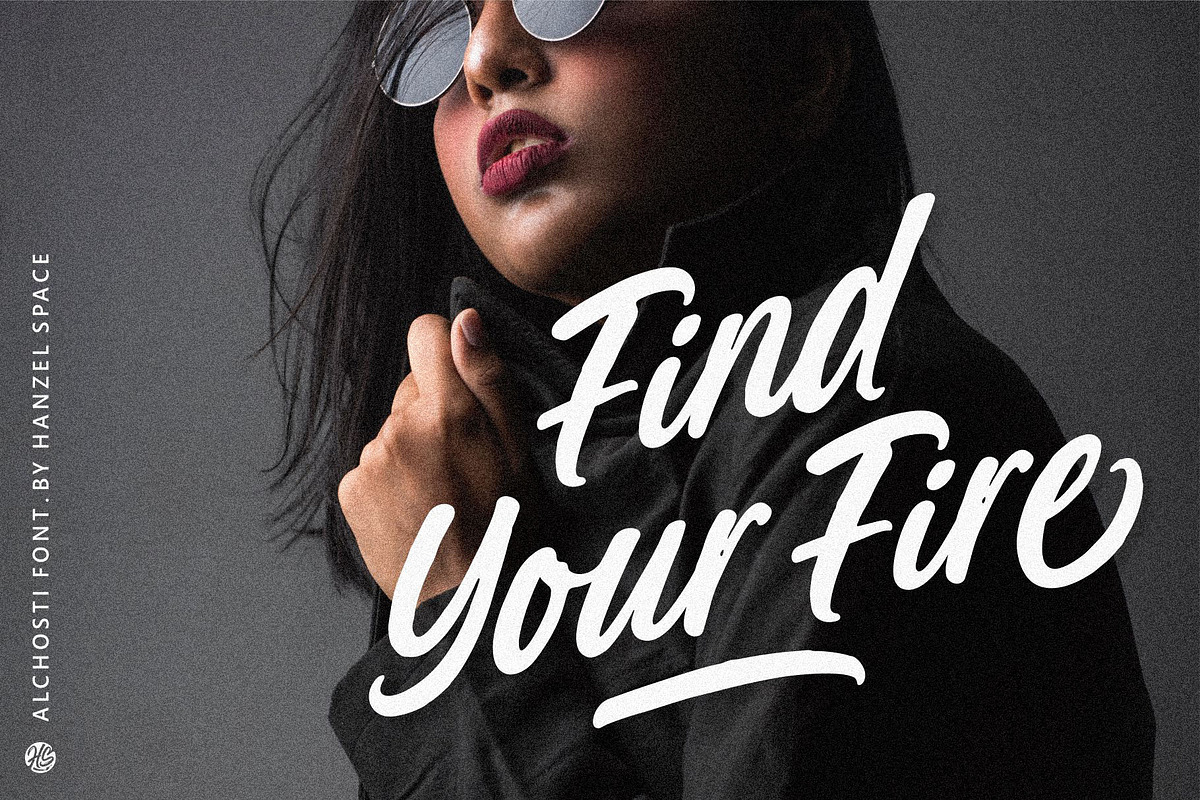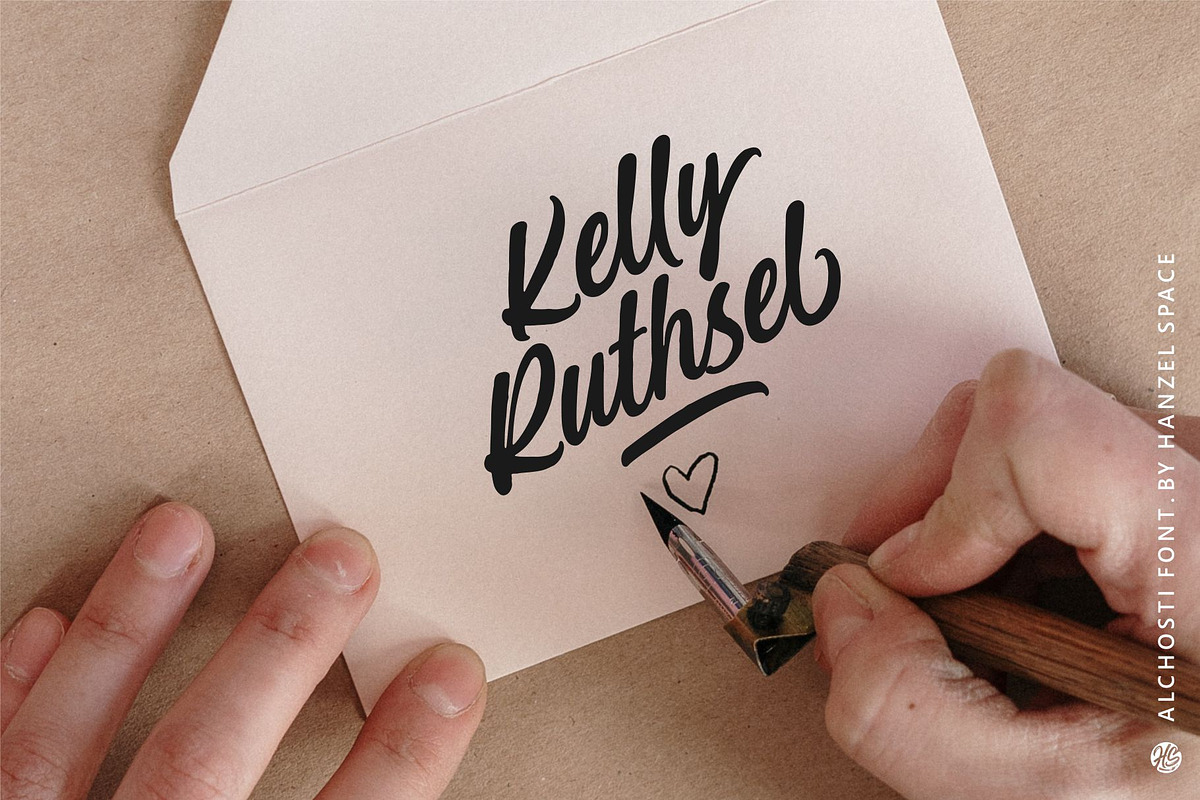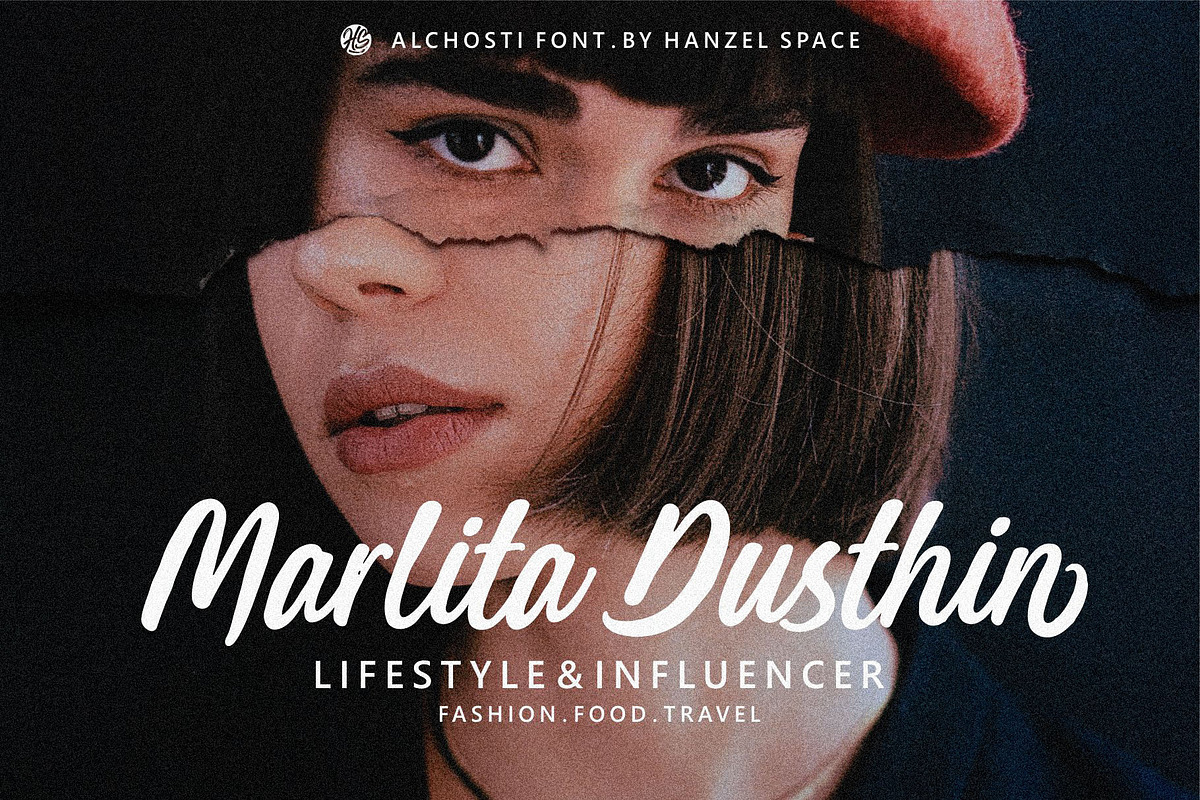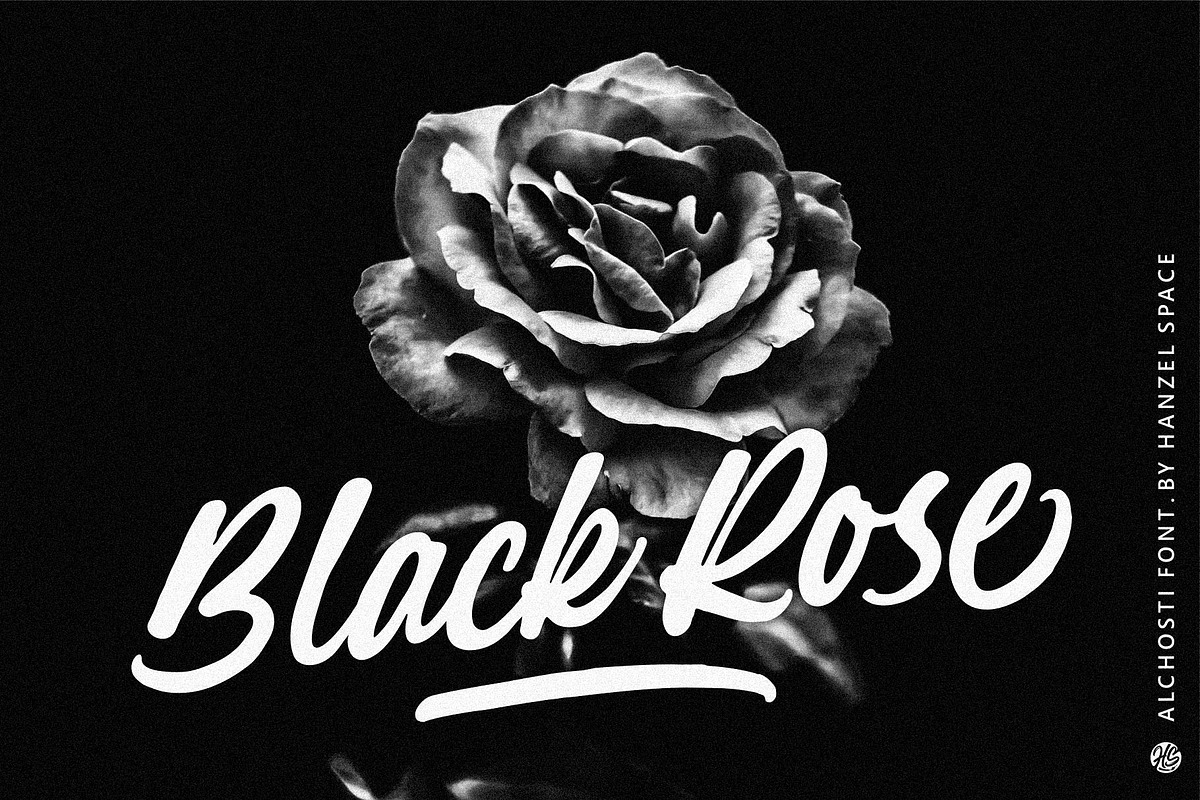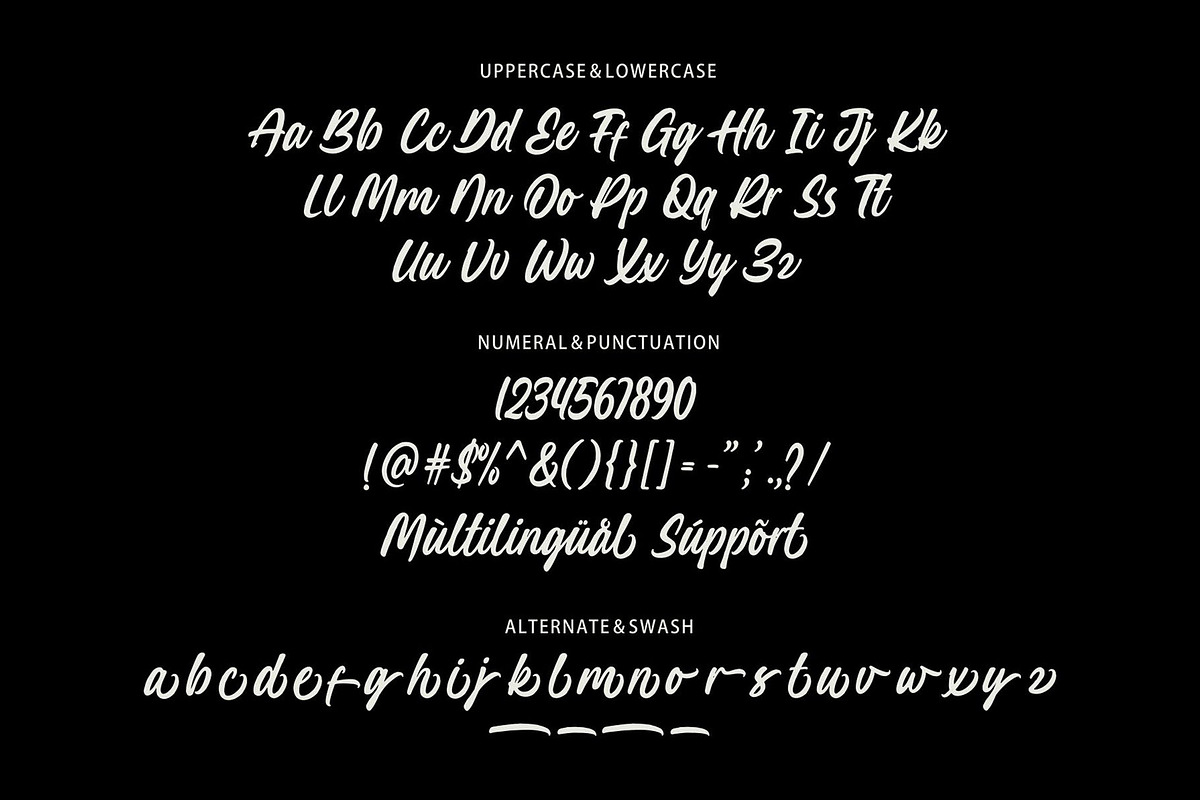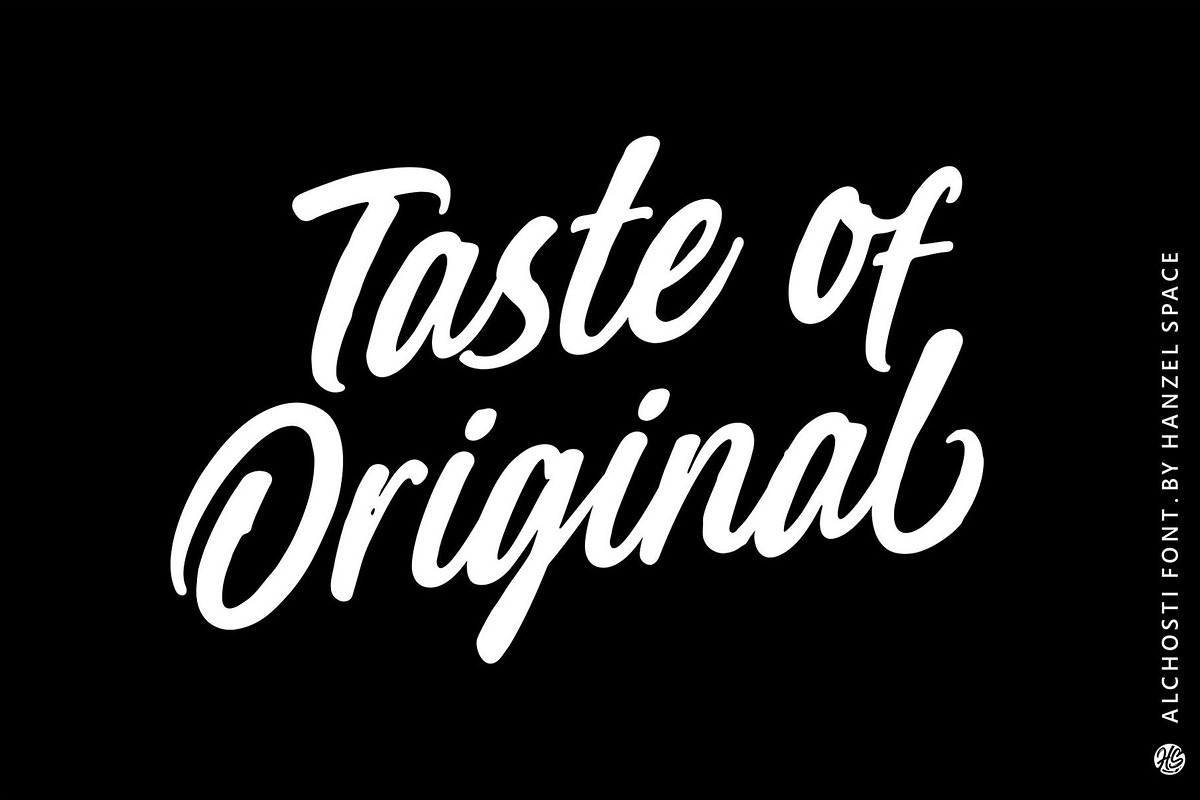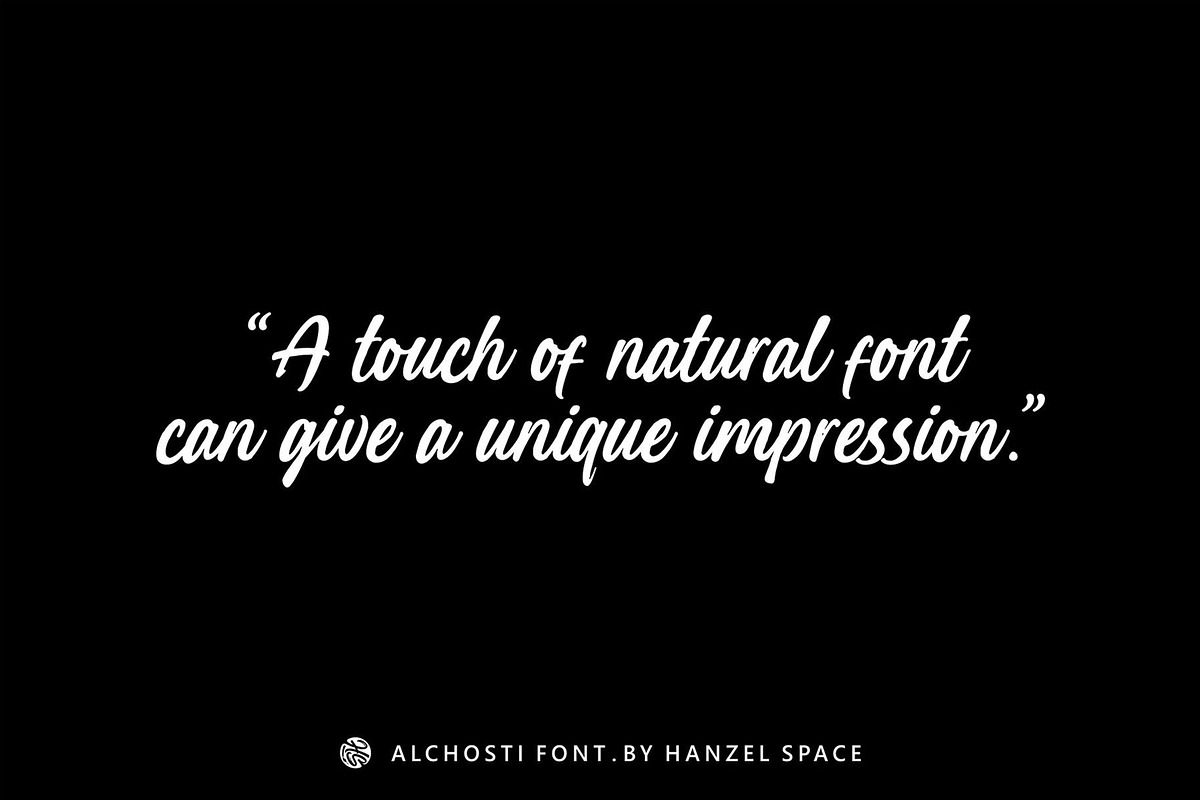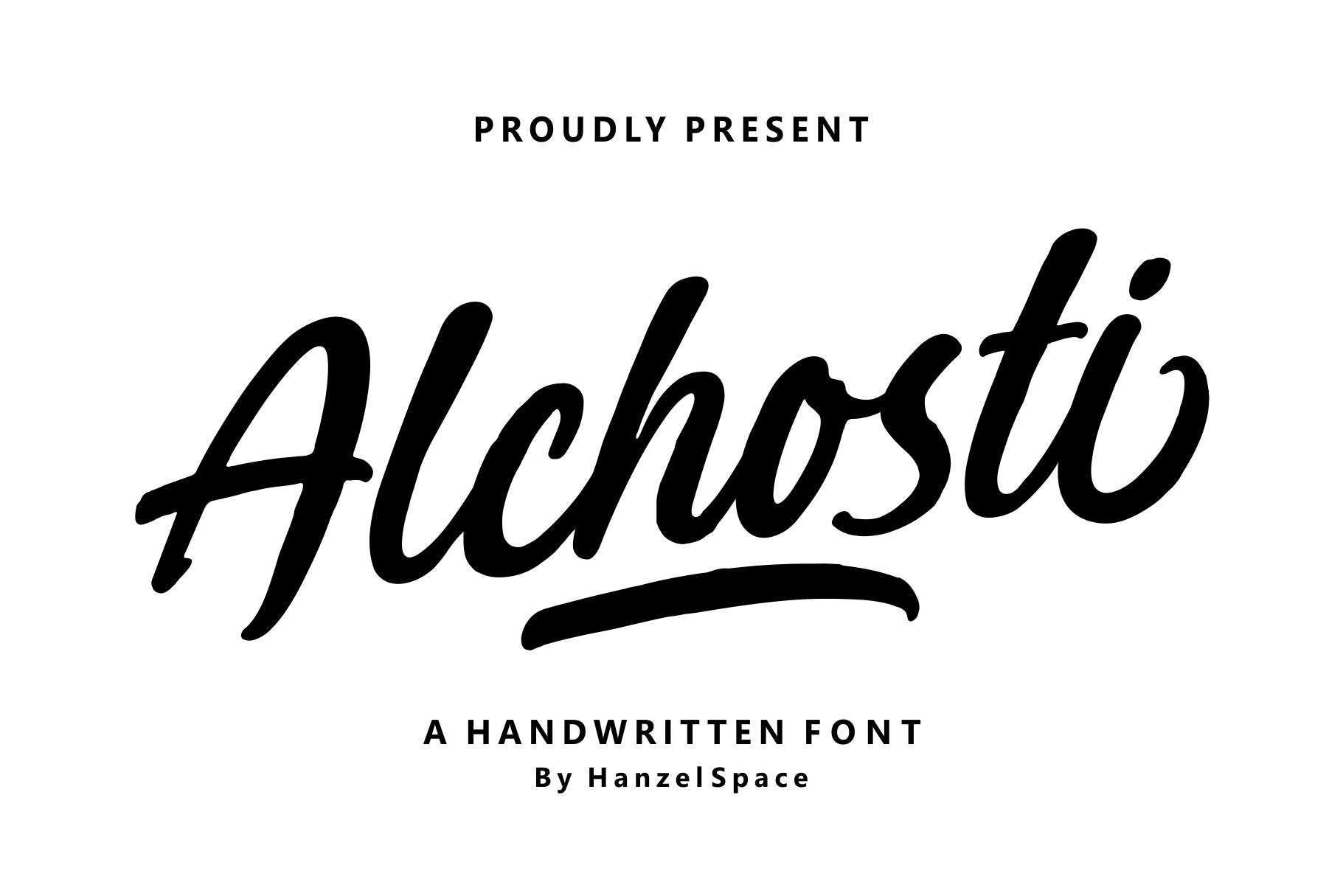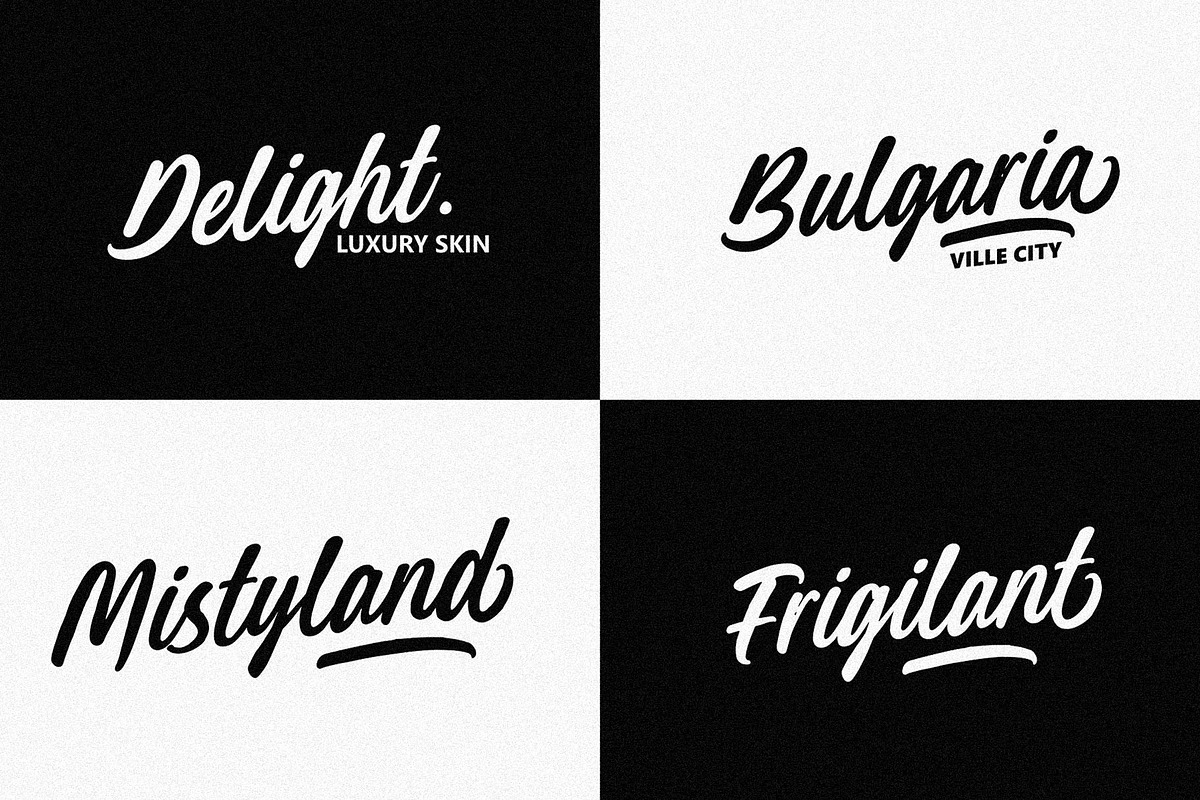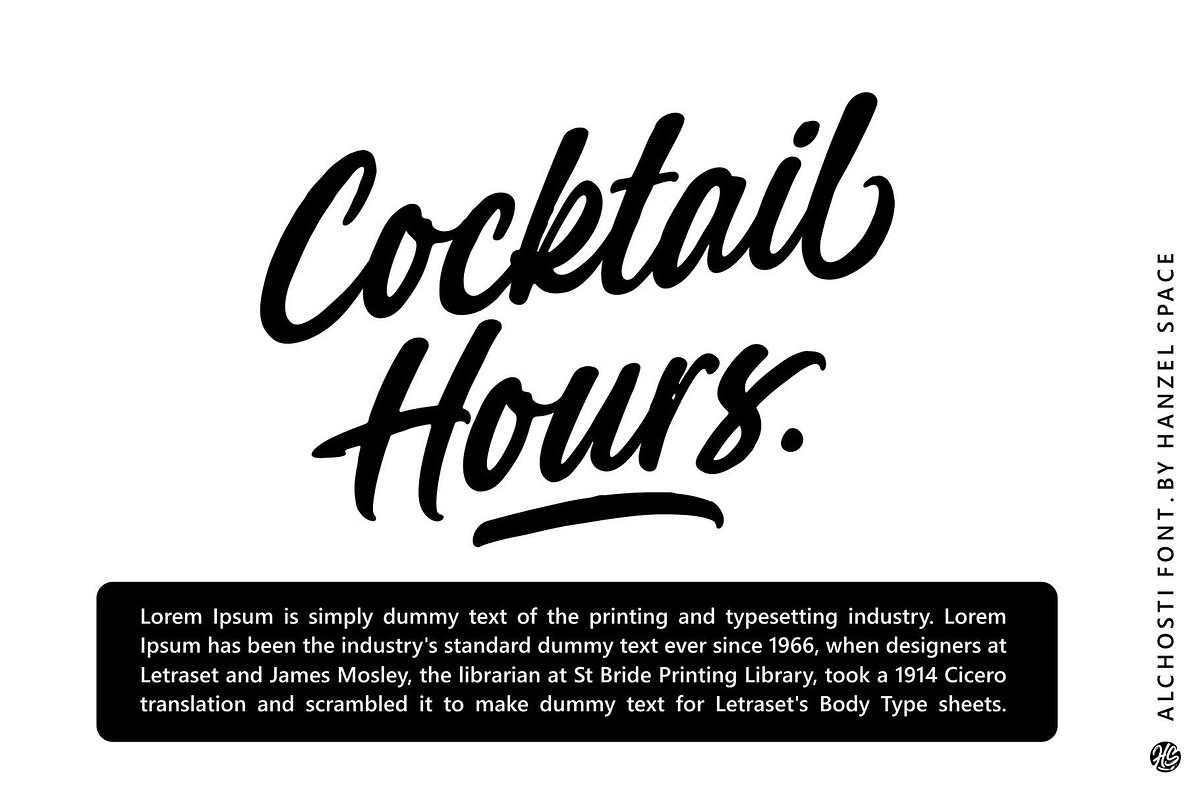
Alchosti – A Handwritten Font
Alchosti Made with original handwriting, it has a slight texture so it looks natural a clear style and dramatic movement this font is great for your next creative project such as logos, editorial design, simple branding, instagram quotes, wedding stationery, packaging, websites, and more!
Multilanguage Supports
Ligature